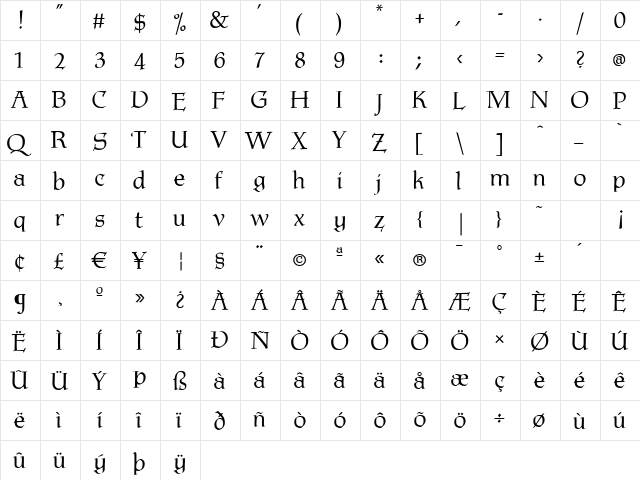
P22 Tyndale Medium
Design Context for P22 Tyndale Typeface
P22 Tyndale offers clean, dependable letterforms without strong stylistic allegiance, making it a practical choice for designers who need flexibility.
Pro Tip: Use P22 Tyndale in both headline and body roles to test its range before committing to a single application.